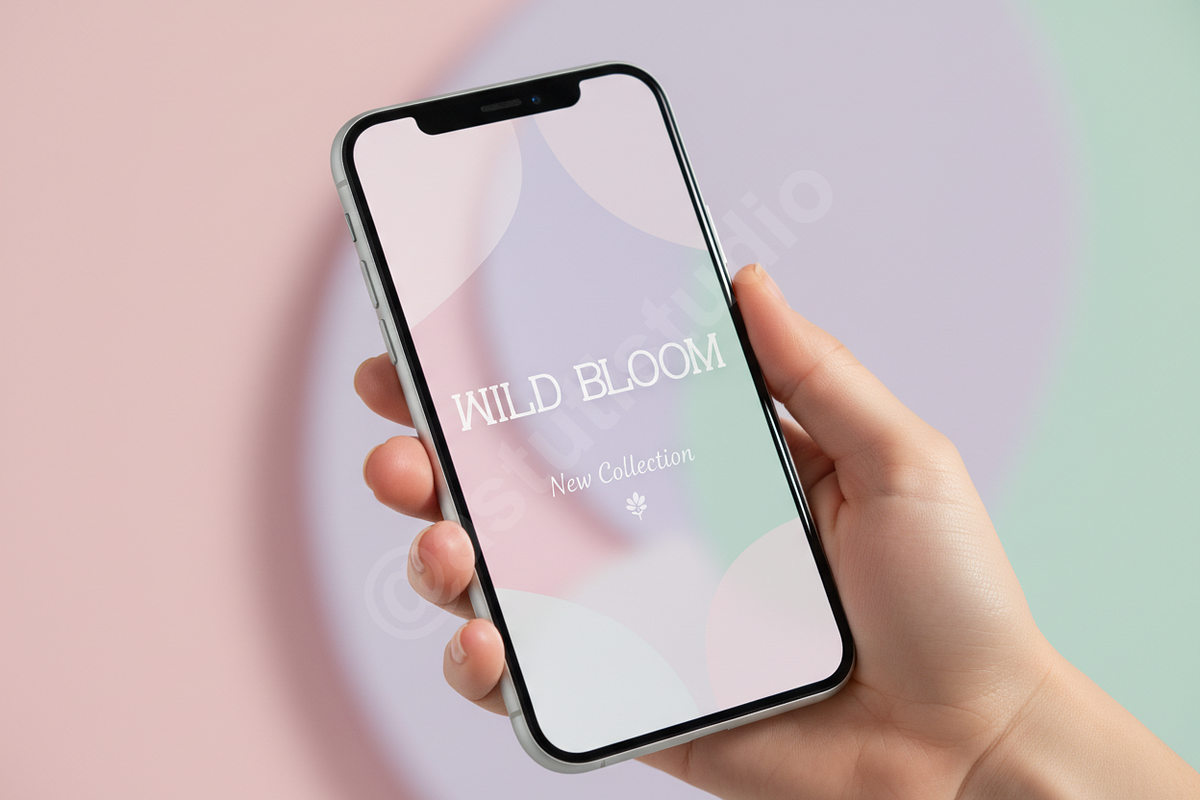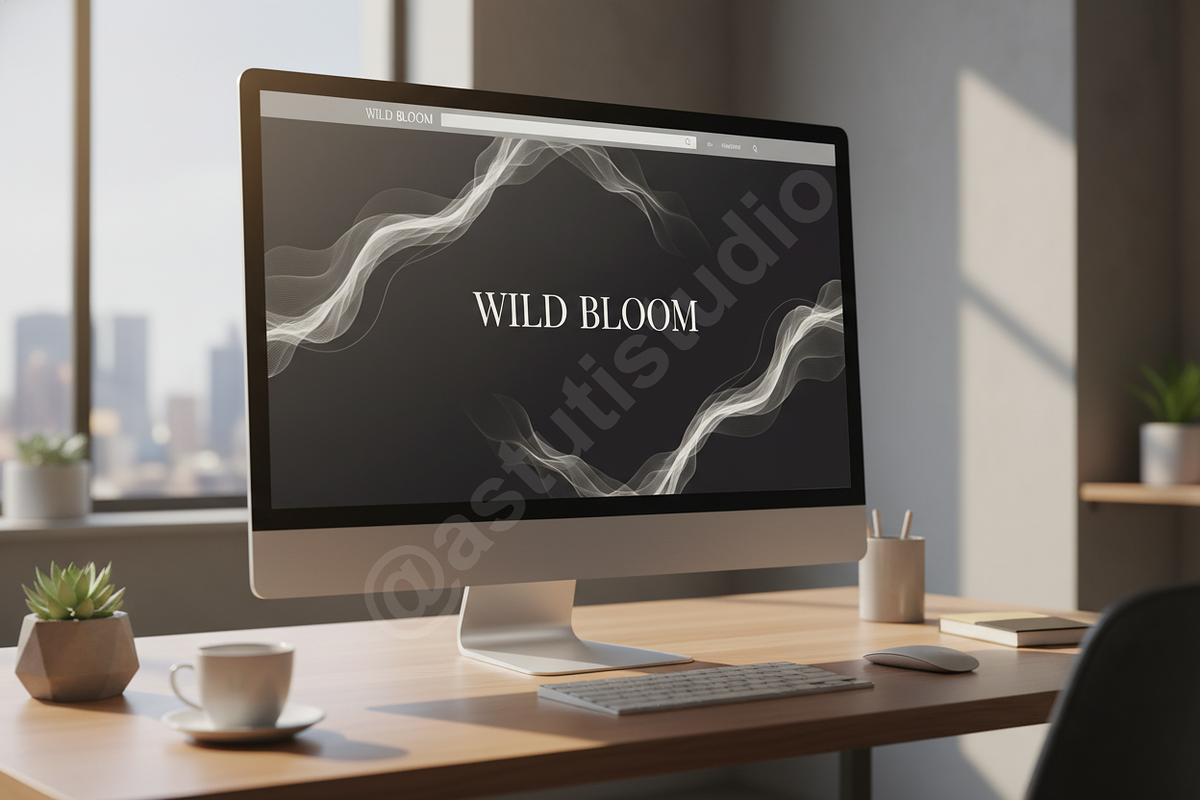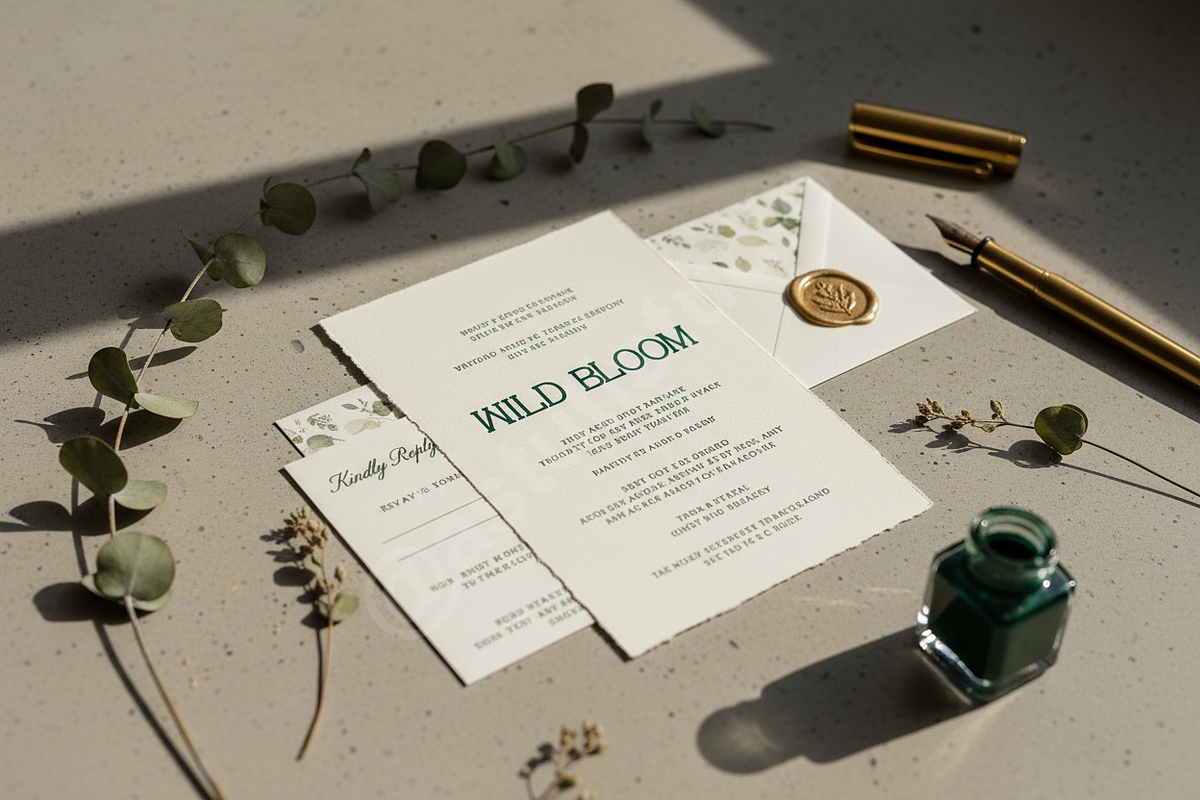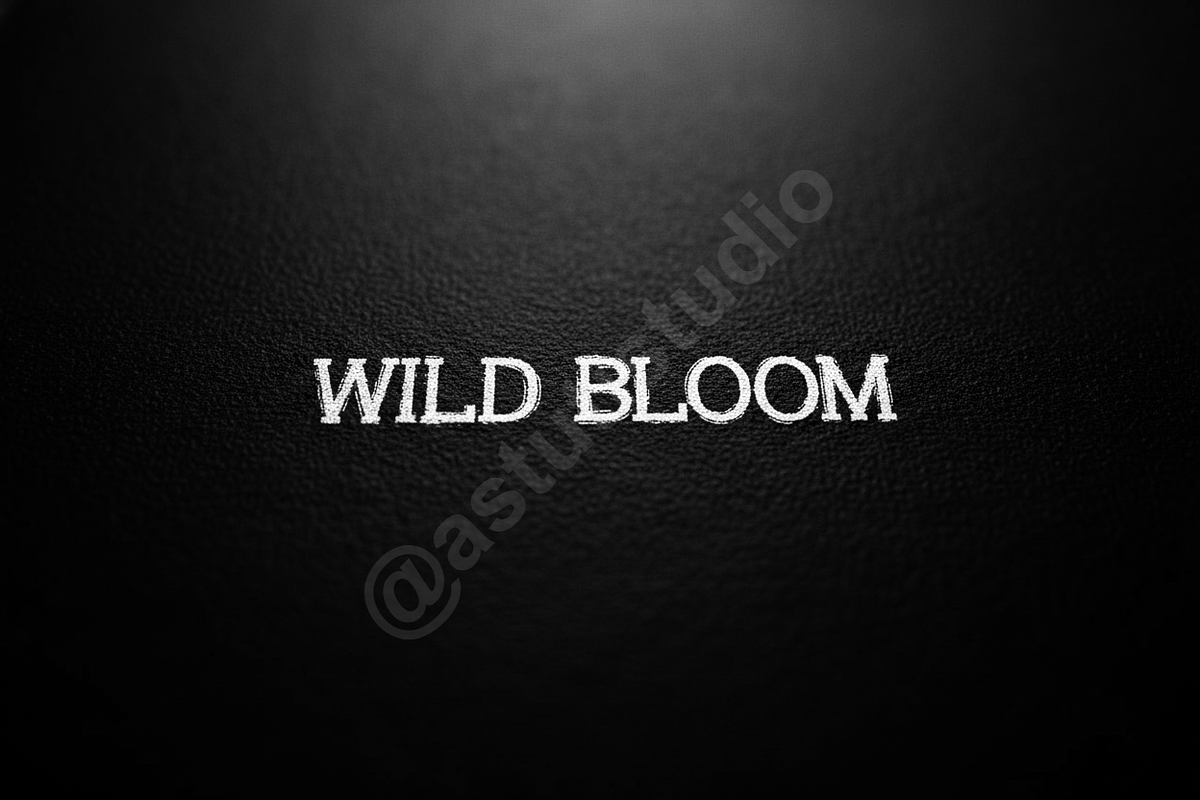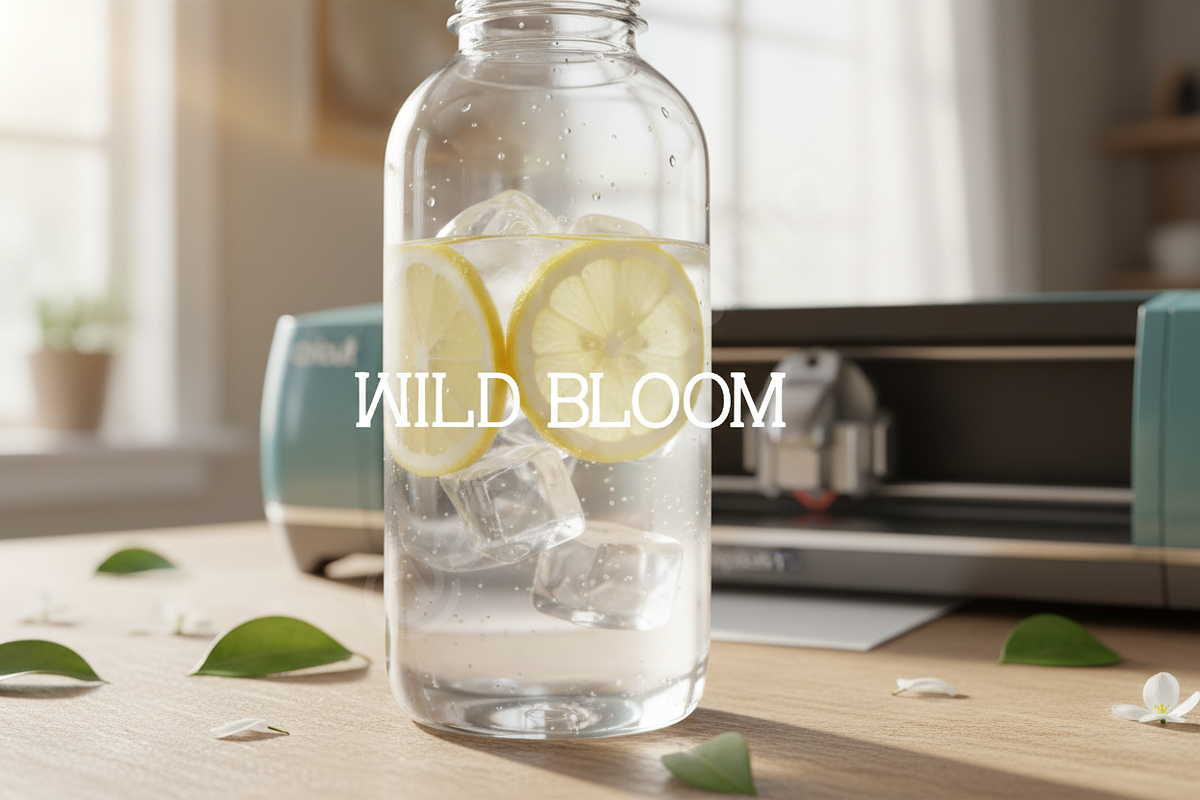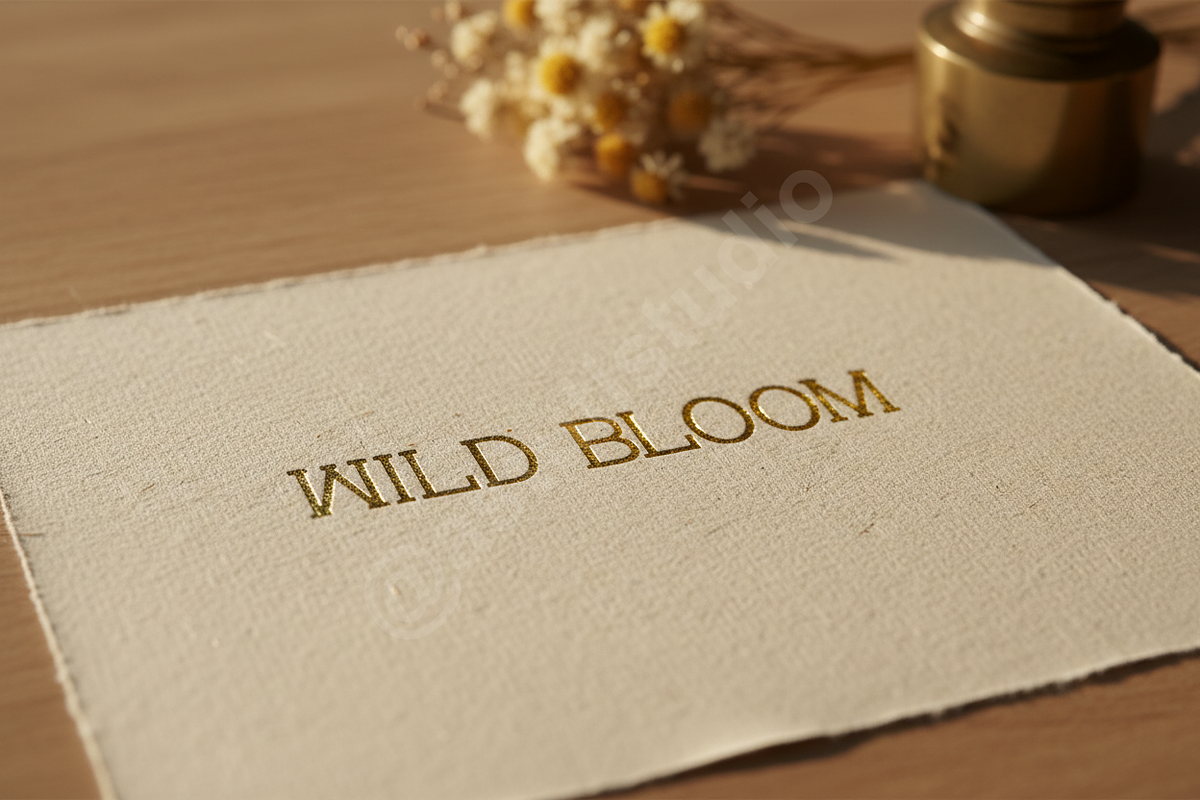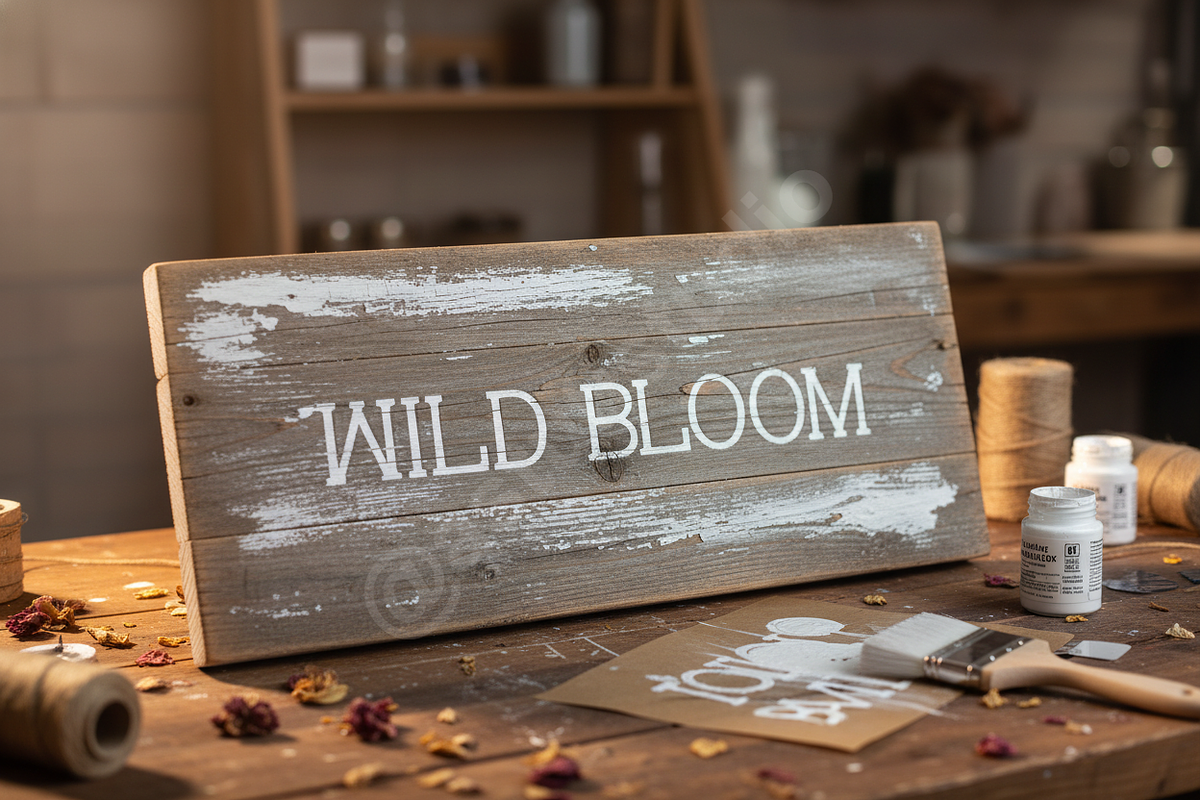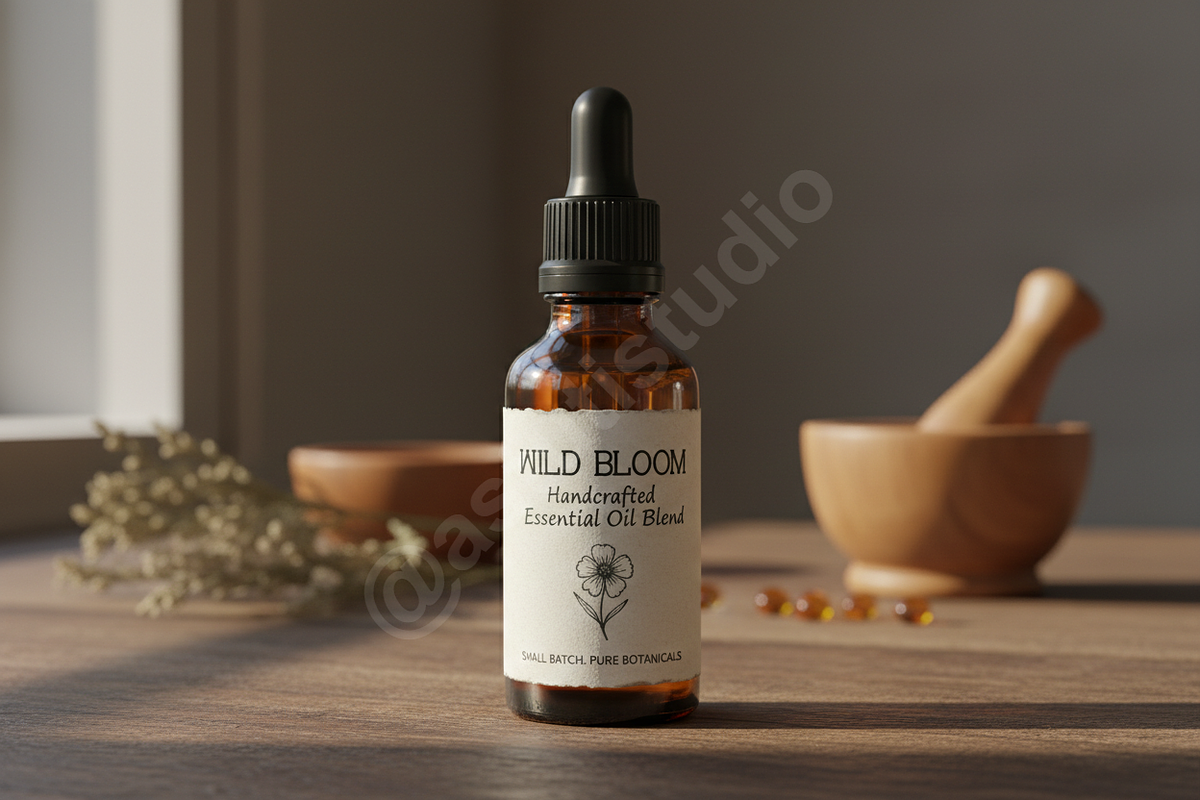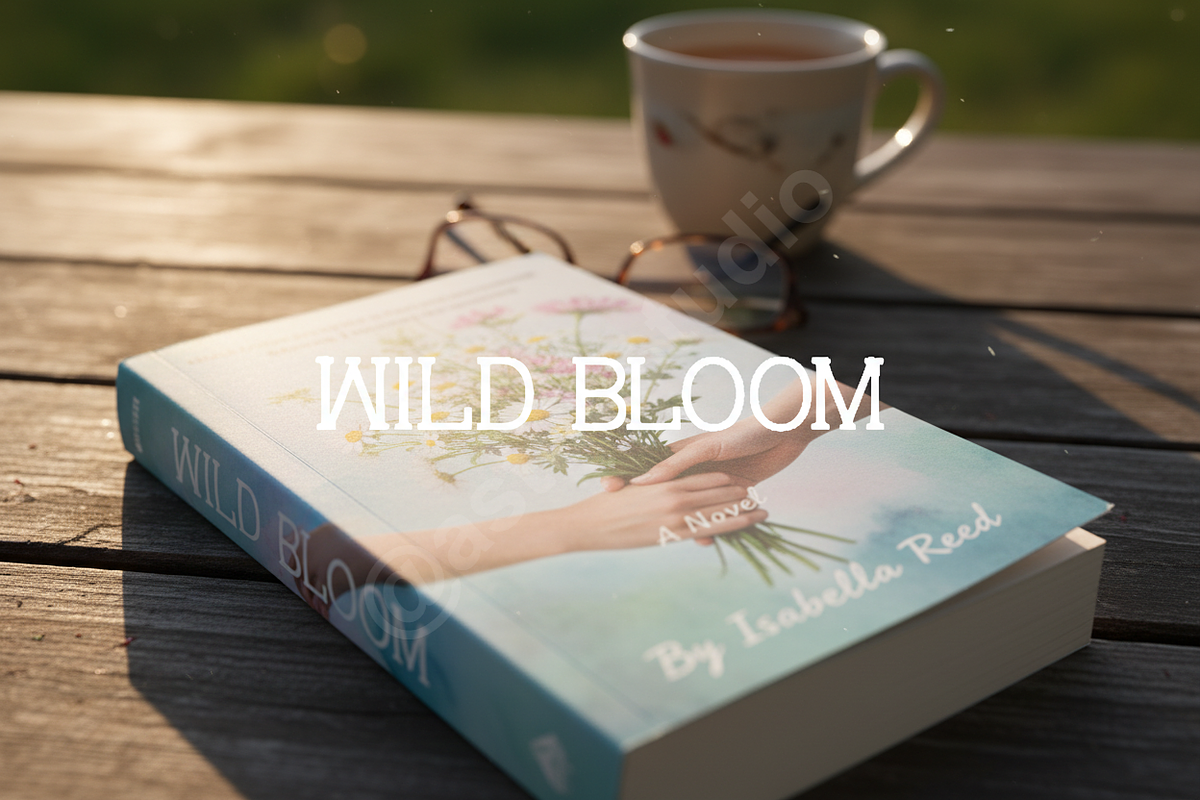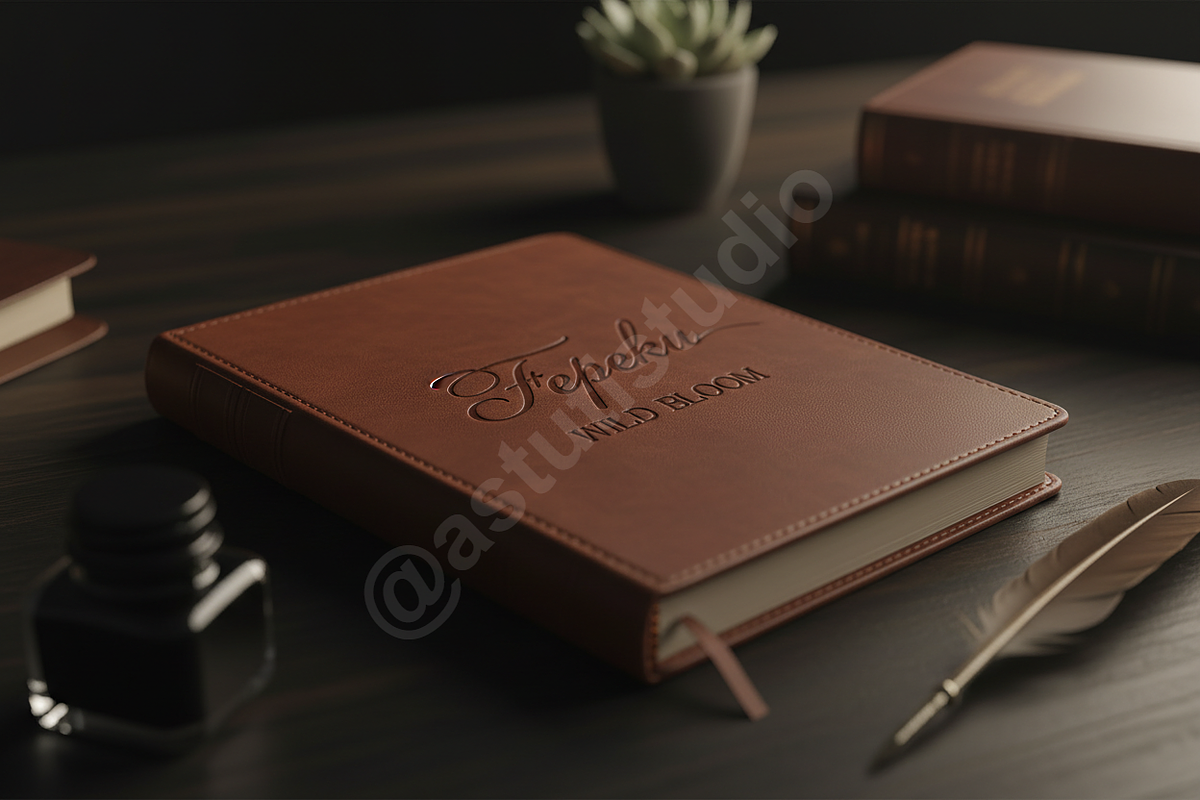
Fepeku - Luxury High-Contrast Displa
Fepeku is a refined, high-contrast display typeface meticulously crafted for projects demanding sophistication and presence. Its sharp serifs, elegant curves, and generous proportions exude timeless luxury, making it the essential cornerstone for premium visual identity systems, high-fashion editorials, and impactful digital campaigns. Elevate your brand narrative with Fepeku’s undeniable elegance.
— Key Design Features — • High-Contrast Lines: Delivers dramatic visual impact on both print and screen. • Extensive Ligatures & Alternates: Over 100 stylistic glyphs to customize headlines and wordmarks. • Multi-Lingual Support: Comprehensive character set covering 90+ languages. • Versatile Styling: Includes Regular and Italic weights, ideal for creating hierarchical text structures. • Perfect For: Luxury Branding, High-End Packaging, Editorial Layouts, and Premium Social Media Graphics.